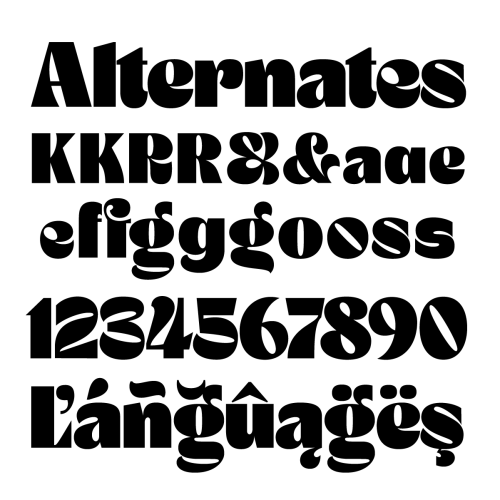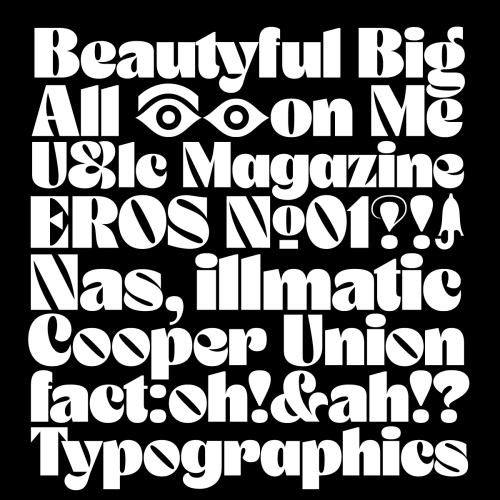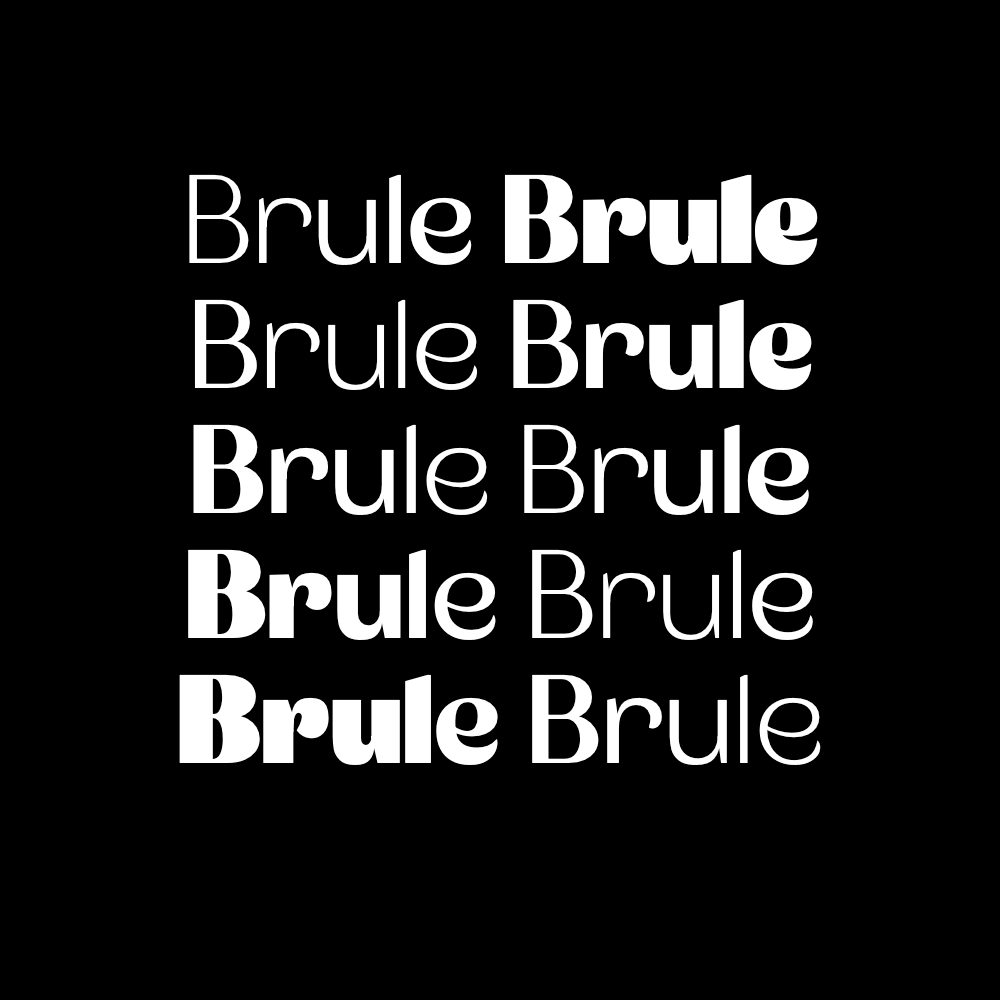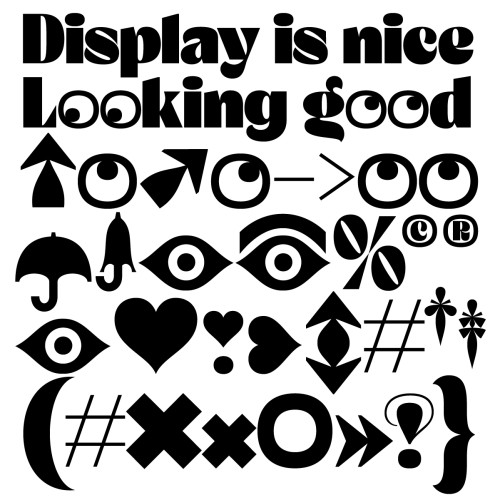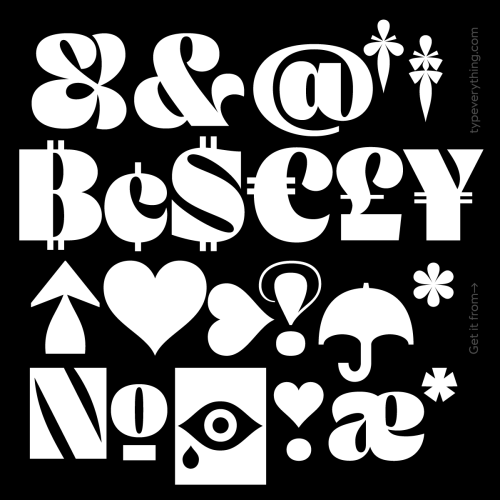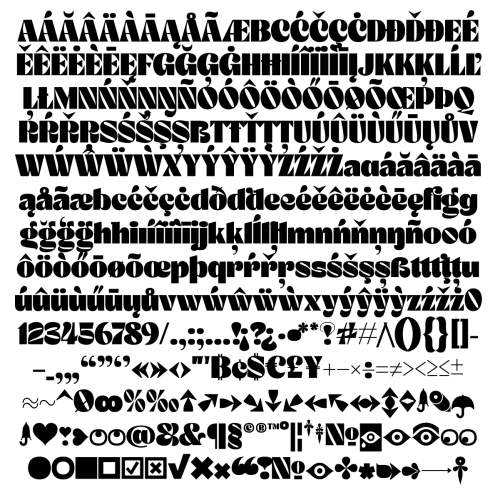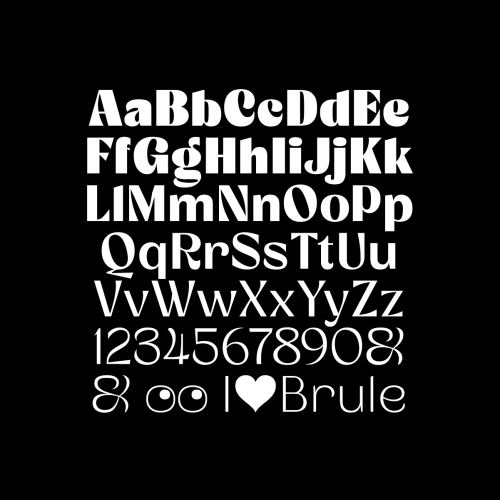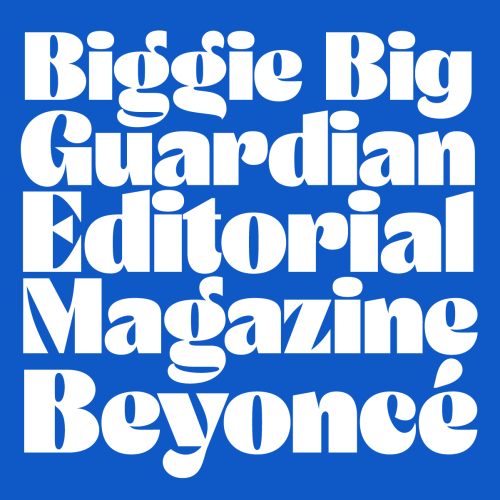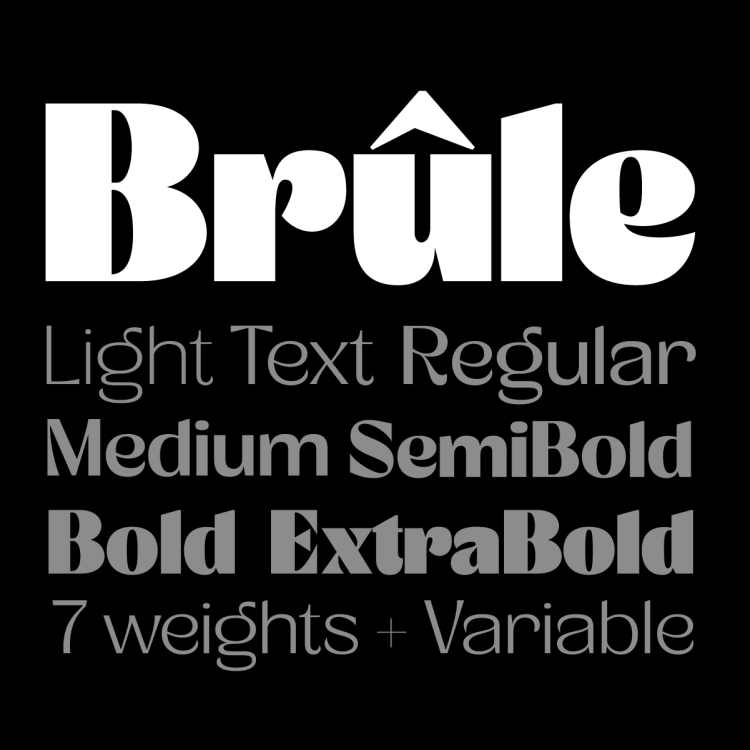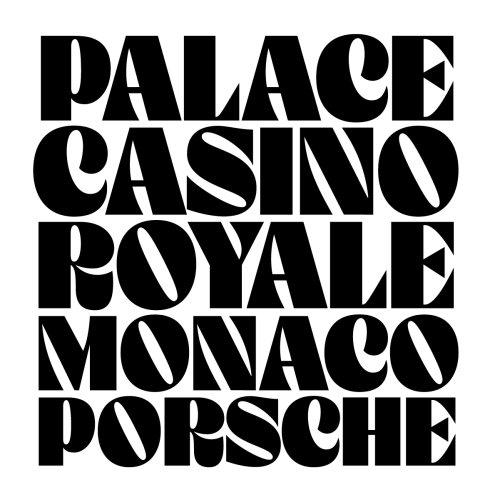
Brule Font Family
Brule is a tribute to the 70’s graphic design era, a nostalgic blast of flavor that brings life and character to your designs. This juicy iconic typeface is packed with…
Brule is a tribute to the 70’s graphic design era, a nostalgic blast of flavor that brings life and character to your designs. This juicy iconic typeface is packed with opentype features, icons and special glyphs, sure to add a touch of excitement and sophistication to any project. Whether it’s for packaging, big displays, or any other visual communication, Brule will make your designs pop and stand out from the crowd. With 9 weights to choose from, you have the versatility to experiment and find the perfect balance for your needs. And with the included variable font file in the full family pack, you have the power to tweak and personalize your designs with ease. So don’t miss out on this chance to bring the iconic 70’s aesthetic to your next project, with Brule!
OpenType Features:
Ligatures, Alternates, Icons.
Designed by Andrei Robu.